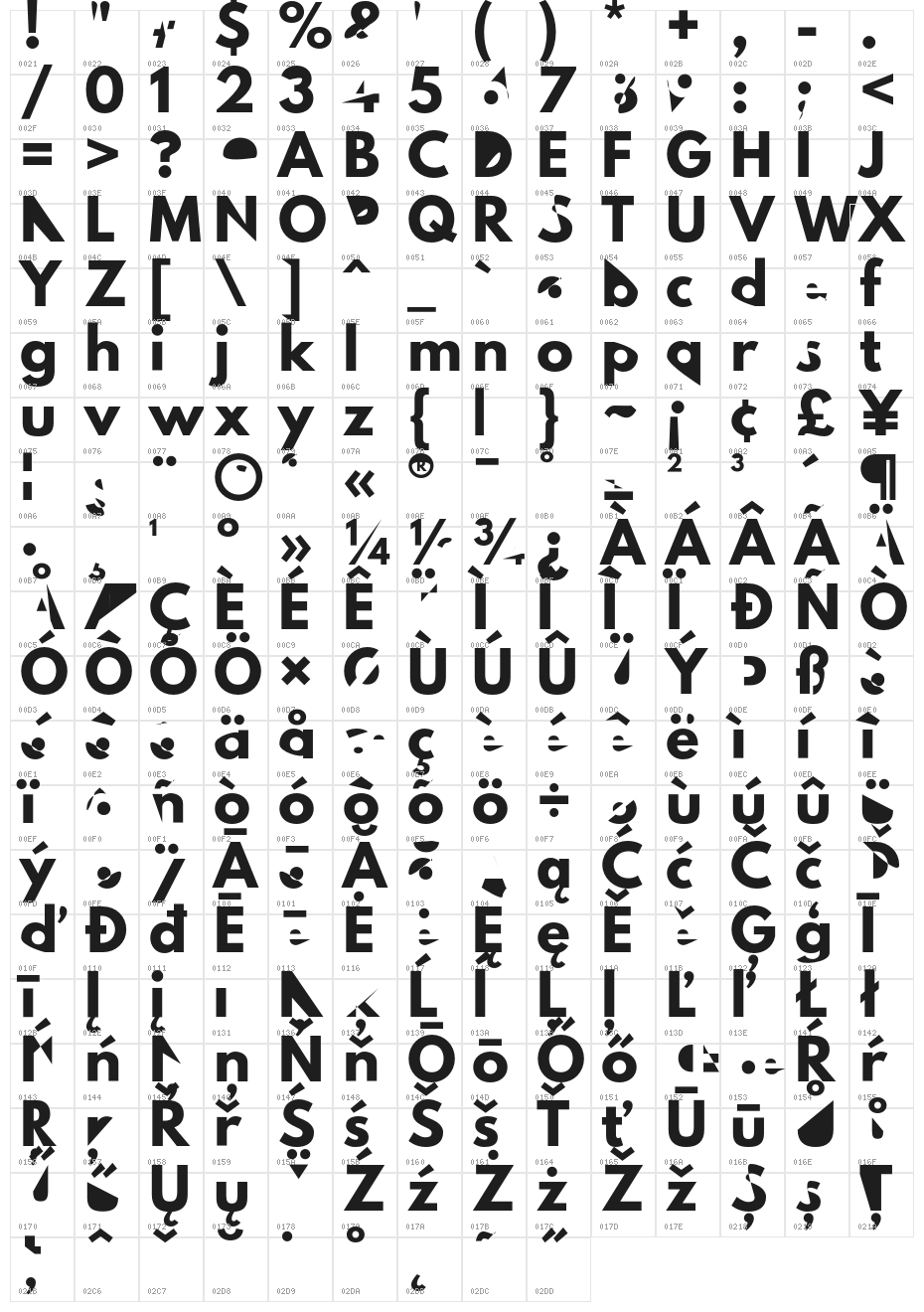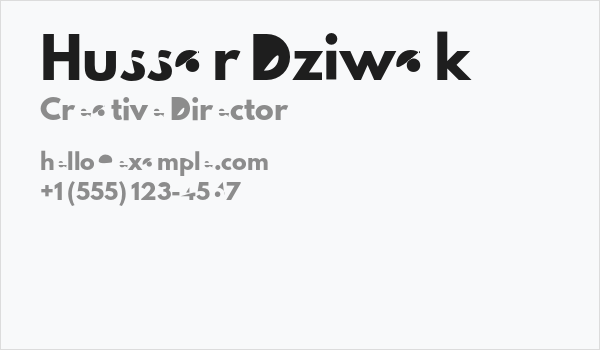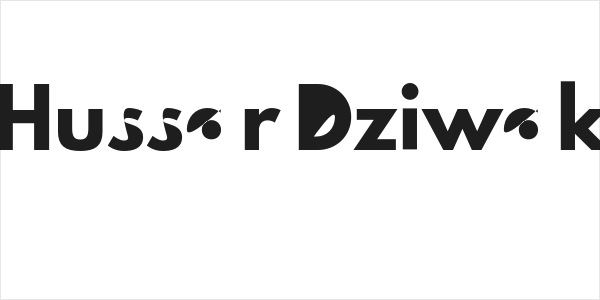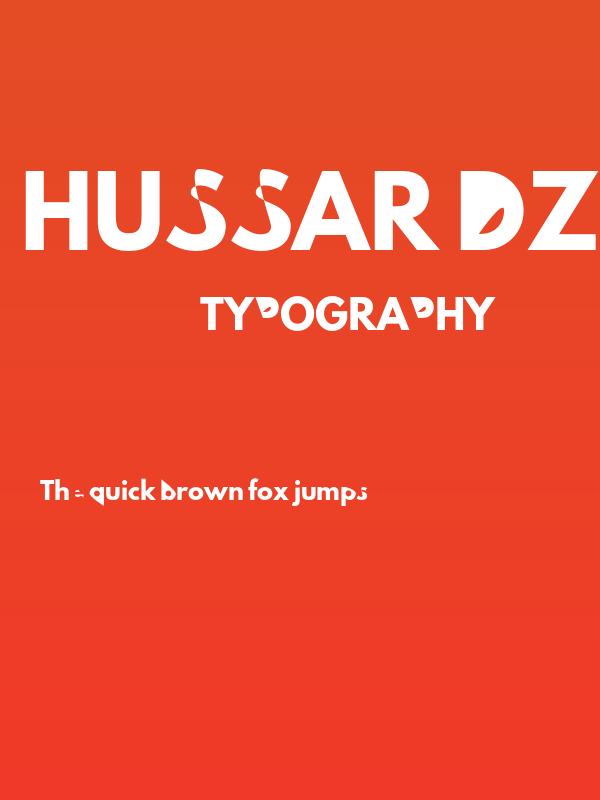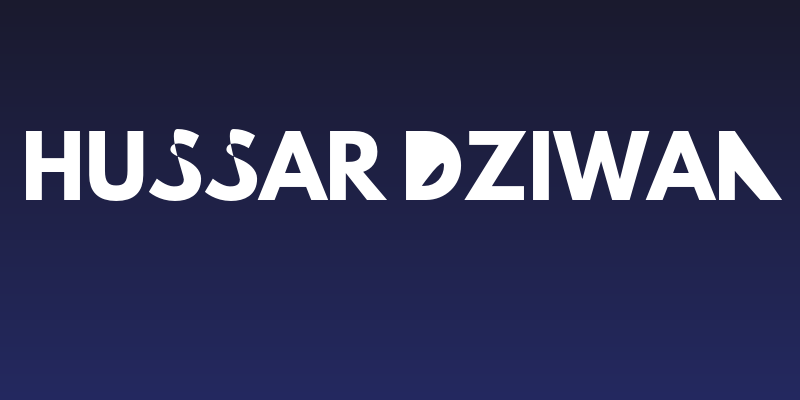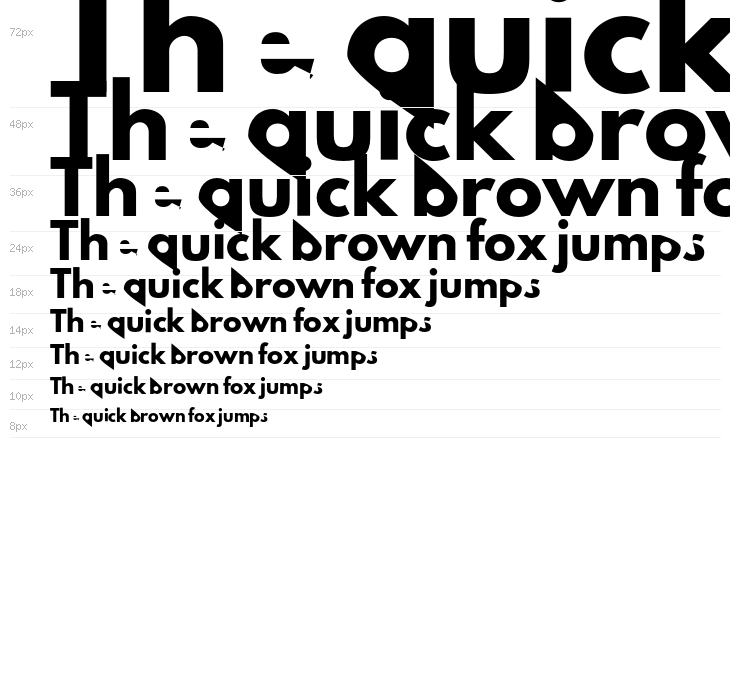
Hussar Dziwak Font
Hussar Dziwak Description
This font features a bold and geometric design with a strong emphasis on angular shapes and sharp edges. The uppercase letters are particularly striking, with unique cutouts and diagonal lines that create a dynamic and modern appearance. The lowercase letters maintain a consistent style, with rounded forms that contrast with the angular elements of the uppercase. Numbers and special characters are designed with the same boldness, ensuring a cohesive look across all text. The font's distinctive style makes it suitable for attention-grabbing headlines and creative projects.
| Proposed Projects | Ideal for modern branding, posters, and headlines that require a bold statement. |